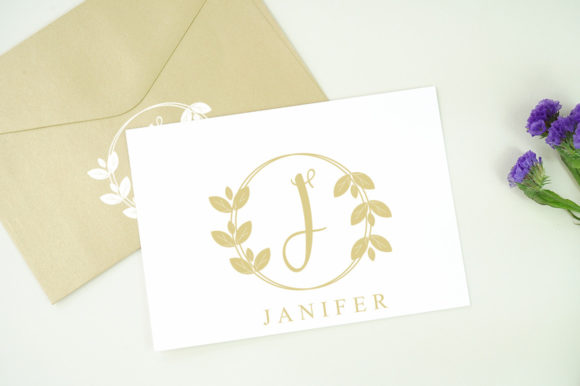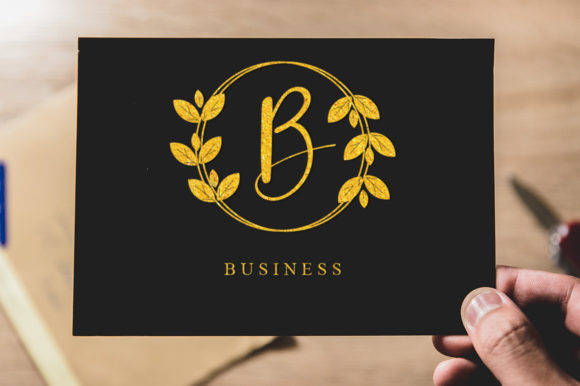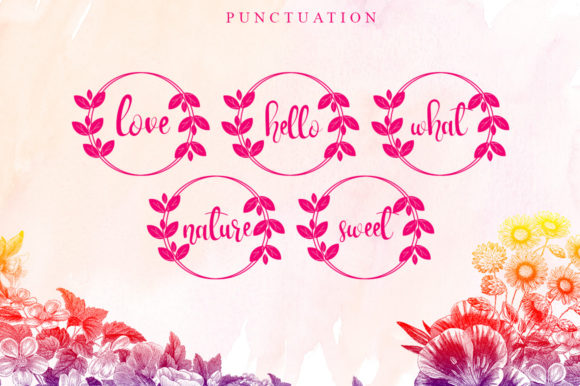
Introduction to Nature Green Monogram Font
Have you ever been brainstorming ideas for a creative project and suddenly, a beautiful font pops into your mind? That’s exactly what happened to me when I stumbled upon the Nature Green Monogram Font. Its fresh and elegant design instantly sparked a wave of inspiration for my next design project.
As designers, we’re always on the lookout for high-quality design resources that can elevate our work to the next level. The Nature Green Monogram Font is a valuable addition to any designer’s toolkit, offering a unique and versatile solution for a wide range of creative projects. With its transparent background and free download option, this font is perfect for designers who want to add a touch of sophistication to their designs without breaking the bank.
Whether you’re working on a formal business card or a whimsical wedding invitation, the Nature Green Monogram Font is sure to impress. Its clean and elegant design makes it a great choice for designers who want to create visually stunning projects that stand out from the crowd.
Key Features of Nature Green Monogram Font
• Unique and creative design ideal for various projects such as wedding invitations, event branding, or any high-quality design.
• Features a transparent background, allowing for seamless integration with various design elements.
• The font’s natural and elegant design makes it perfect for any creative project that requires a touch of sophistication and class.
• Perfect for designers looking for a unique and high-quality monogram font to elevate their designs.
Honest Review: Nature Green Monogram Font
I recently had the chance to work with the Nature Green Monogram Font, and I’m excited to share my honest thoughts with you. As a designer, I’m always on the lookout for high-quality design resources that can elevate my creative projects.
The Nature Green Monogram Font is a free download that offers a beautiful, natural look that’s perfect for outdoor-themed designs. The font features a transparent background, which makes it easy to use in a variety of design settings.
• ✨ Beautiful, hand-drawn design that adds a personal touch to any project
• ⚠️ Limited character set may require additional font styles for more extensive use
• ⚠️ Some users may find the font’s natural design too casual for formal projects
Overall, I’m impressed with the Nature Green Monogram Font. It’s a great design resource that can add a unique touch to any project. While it may have some limitations, the font’s high quality and free download make it a great choice for designers of all levels.
The Nature Green Monogram Font is a high-quality design resource ideal for creative projects. This free download offers a unique and elegant touch to any design.
Tips for Getting the Most Out of Nature Green Monogram Font
Use the Nature Green Monogram Font with a transparent background for a seamless design.
Combine the font with other design elements, such as leaves or flowers, for a cohesive look.
Common Use Cases for Nature Green Monogram Font
The Nature Green Monogram Font is ideal for:
Wedding invitations and stationery.
Event branding and marketing materials.
Personalized gifts and stationery.